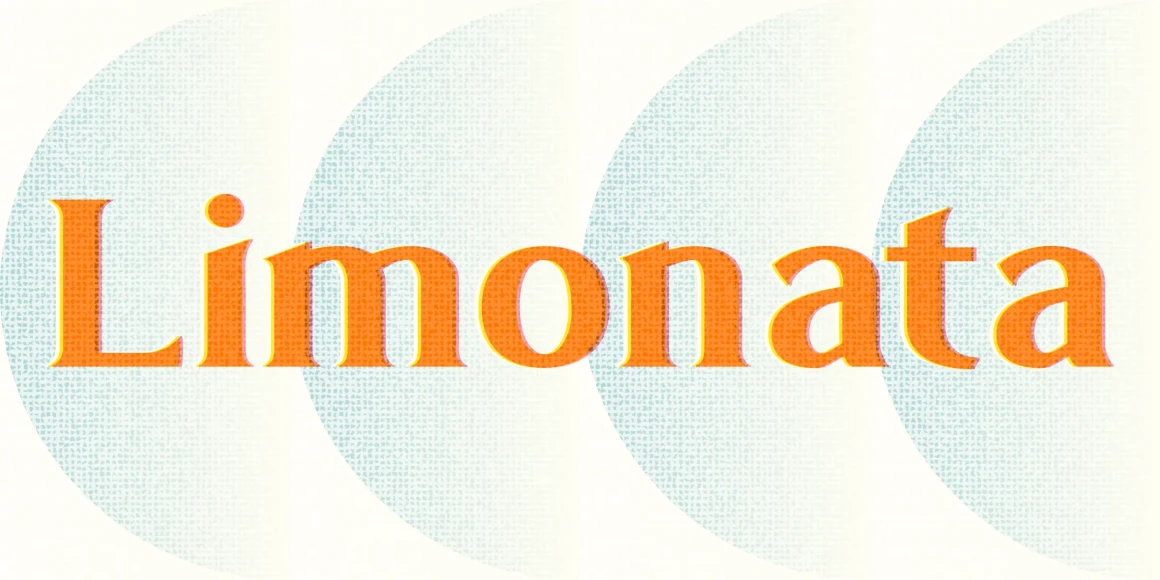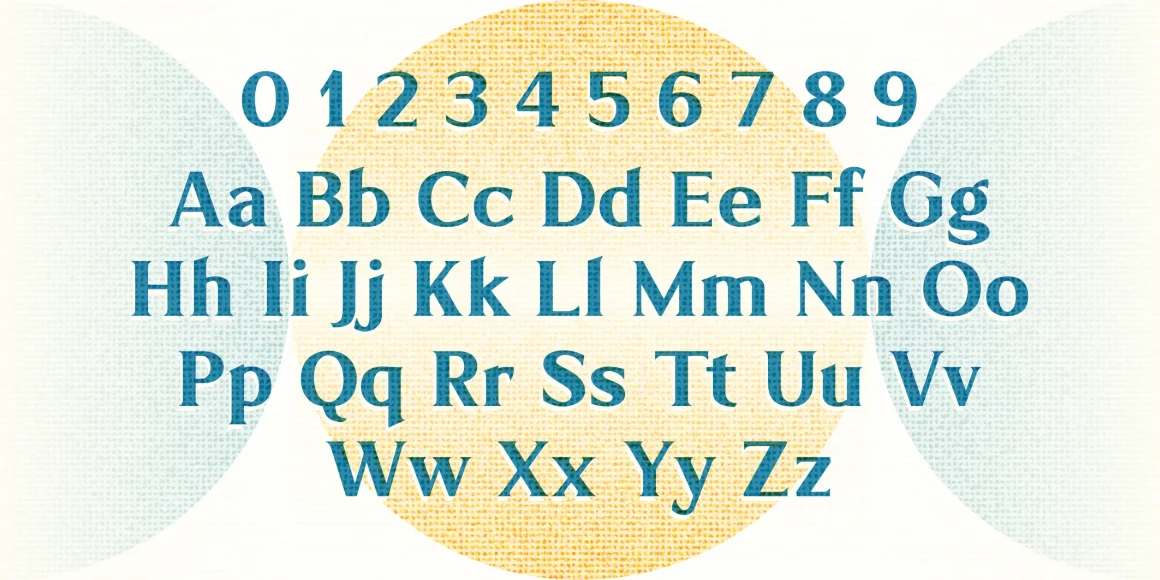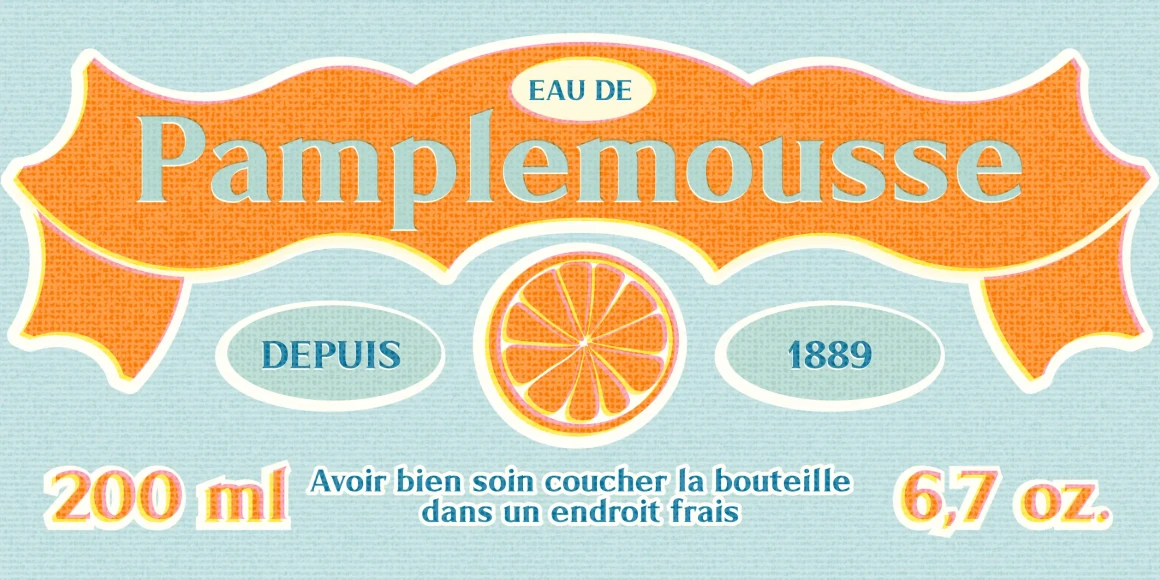
Limonata
From Chank Co
The Limonata font family is a useful and credible text face for sophisticated, contemporary designs. It’s a smart and versatile family of fonts, comprised of 30 styles across a range of three widths.
It’s a legible and direct type family. Ranging in 5 weights (plus italics) from Light to ExtraBold in each width style, Limonata has enough styles to give the expert designer a broad typographic palette to work with.
Inspired by the great serif body text fonts of the past yet aimed at the audience of the future, this is a stylistically broad font family that is considerably more conservative for practical everyday body copy applications. The voice of the Limonata font is a competent and credible new serif text font, with a traditional style presented with modern feels for the new media of the 21st century.
OpenType versions have a few special features, like some smallcaps and oldstyle figures.
Designed by Nicollazzi Xiong & Chank Diesel